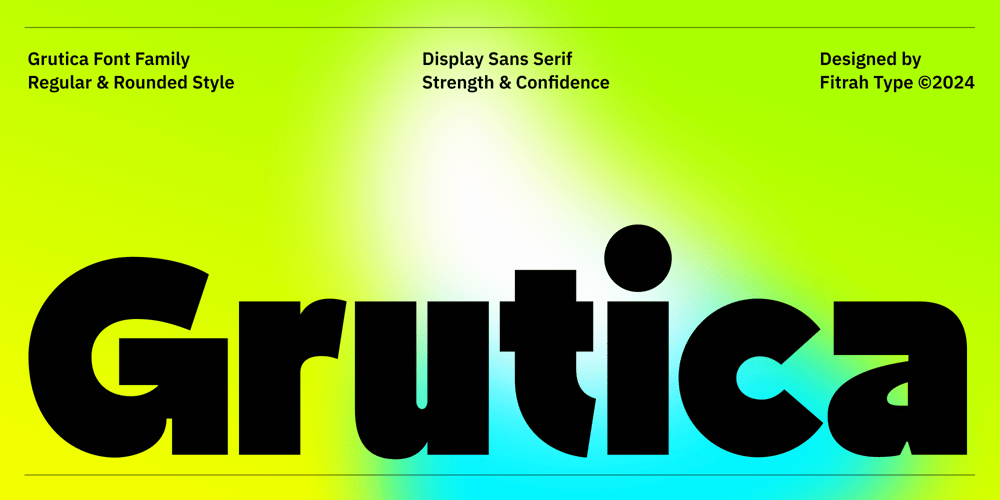
Grutica Font Family was designed by Moch Fitrah Hidayat and published by Fitrah Type. Grutica contains 2 styles and family package options. Introducing Grutica, a bold and trendy sans-serif font designed to make your designs stand out. With its strong, clean lines and modern aesthetic, Grutica is perfect for projects that need a confident, stylish, and eye-catching typeface. Grutica’s thick strokes and sharp edges create a powerful visual presence, making it ideal for headlines, logos, branding, and advertisements. Fully compatible with popular design tools like Adobe Illustrator, Photoshop, and other creative software.